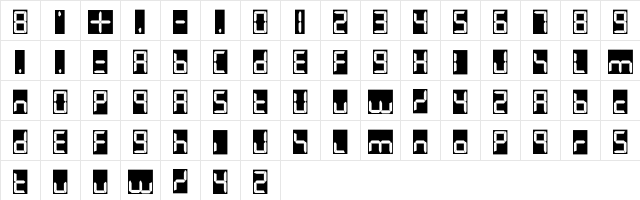
7LED Regular
Design Context for 7LED
7LED is a composed and adaptable typeface that performs quietly and consistently across a wide range of design contexts.